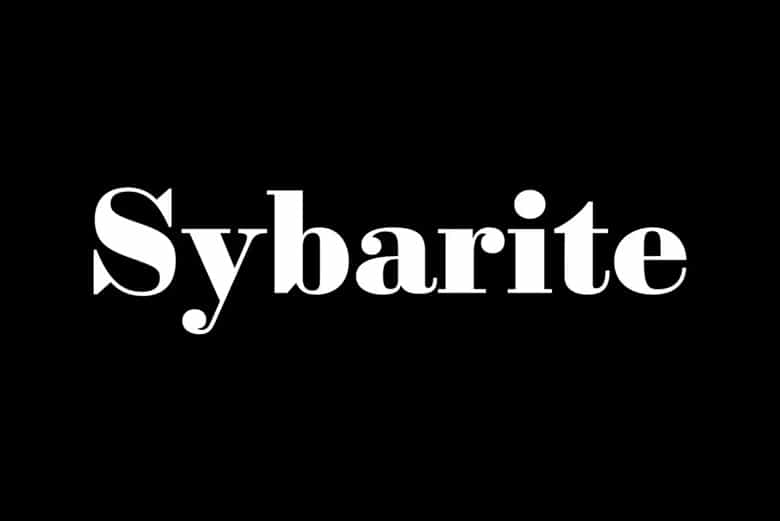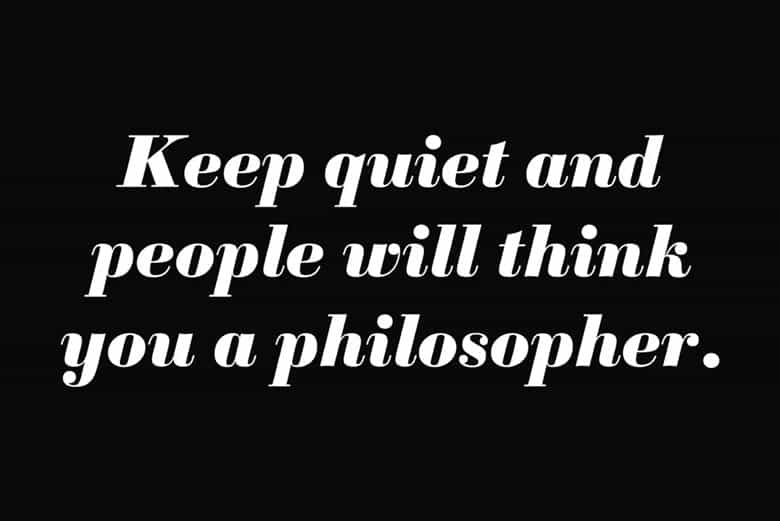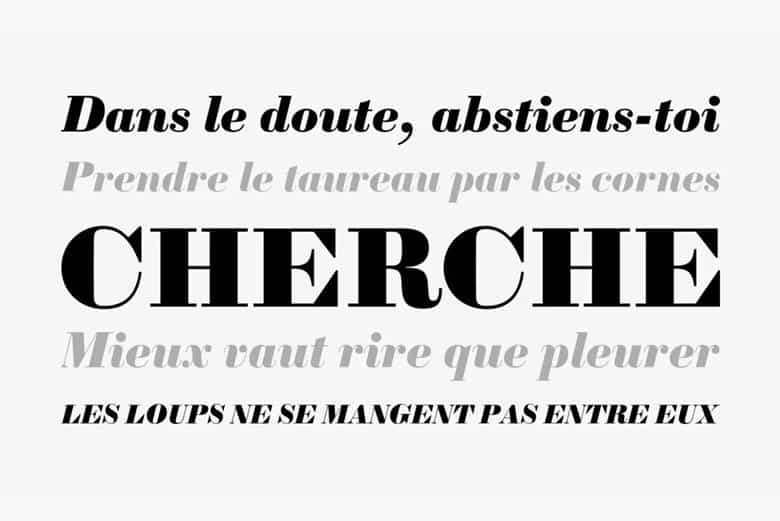
Sybarite Serif Font is a fat face type that suits any size. Bolder capitals with forward leaning curves and straight unbracketed serifs are dramatic, assertive even, while smaller minimal are friendly, even sweet. Sybarite is James Puckett’s reinterpretation of the fat face that is found in the 1829 specimen of Alonzo W. Kinsley’s Franklin Letter Foundry. Kinsley’s was an extremely short-lived and an unprofitable store. It started in 1825 (some scholars argue that it started in 1829) and closed in 1832 after Kinsley’s death.